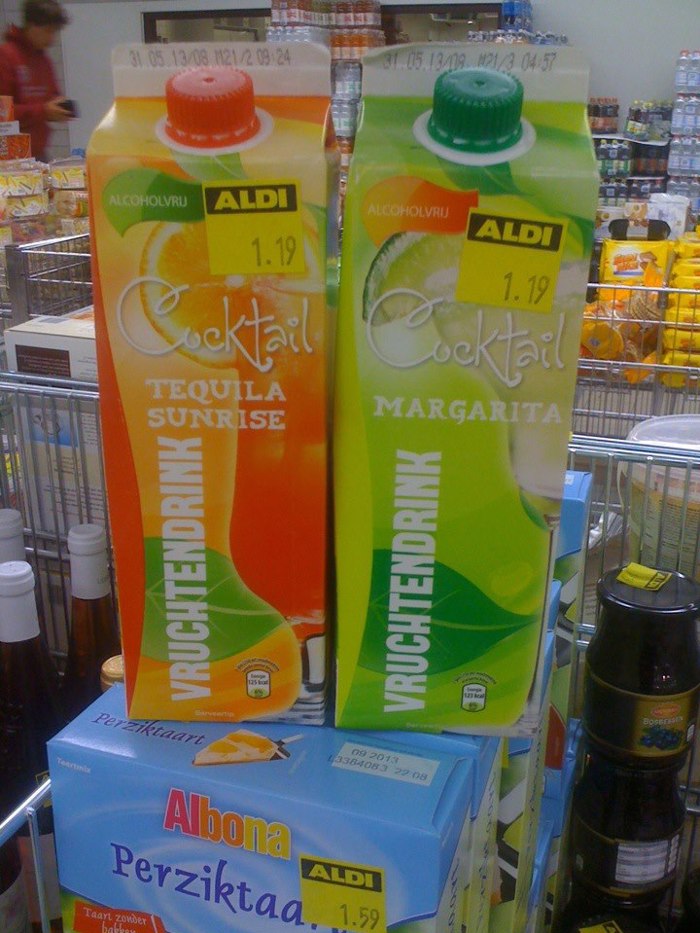
FORQUE Font
A font that looks like it's designer; big, old and fat. I needed a font for a 3D model of an old movies studio, and I made this. No lower case, only small caps.
good looking font...perfect for the my use
Using this to design a logo for a local coffee company! It's perfect (:
Didn't use it for my project, but it is cool.
This is really cool, I'm glad it's out there! Might be using this (or trying to anyway) sometime soon....
I've been using this font almost constantly for a board game project! Kudos to the designer!
Fab, using it for a few posters!